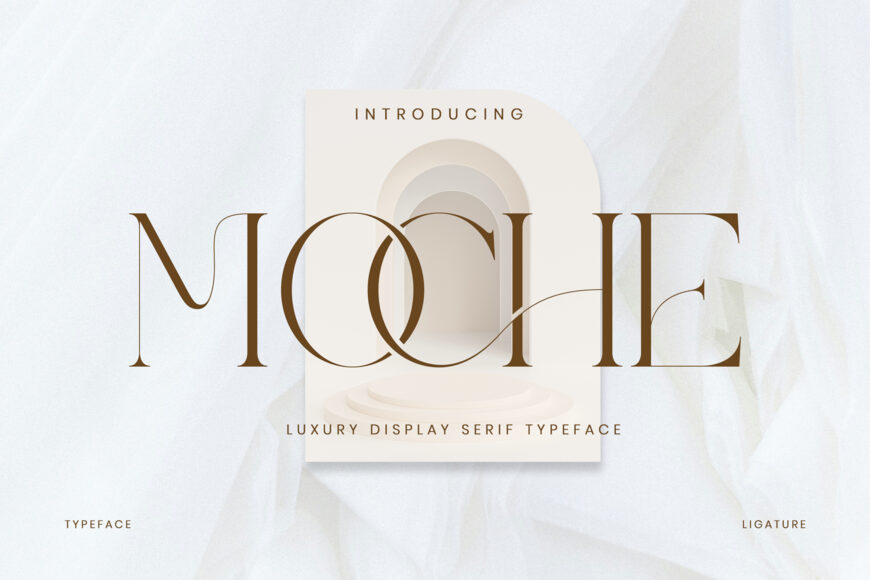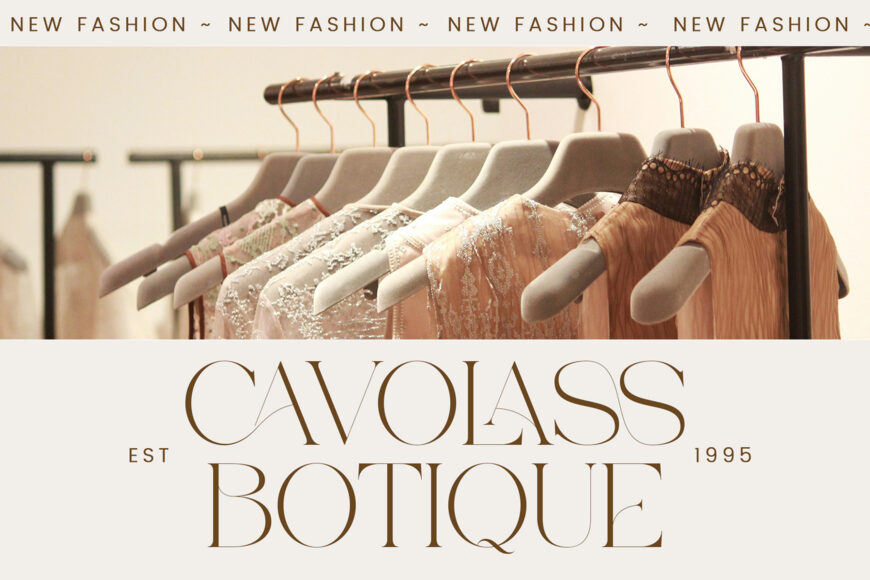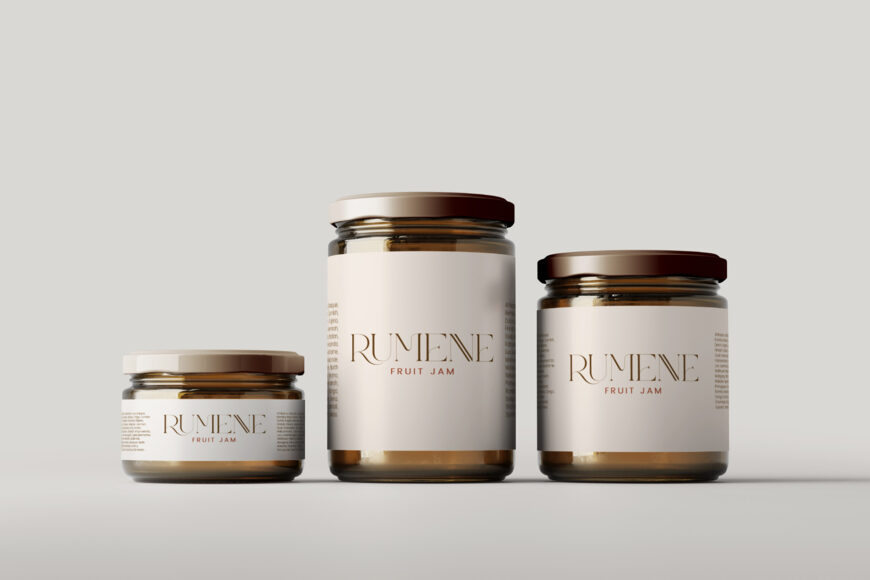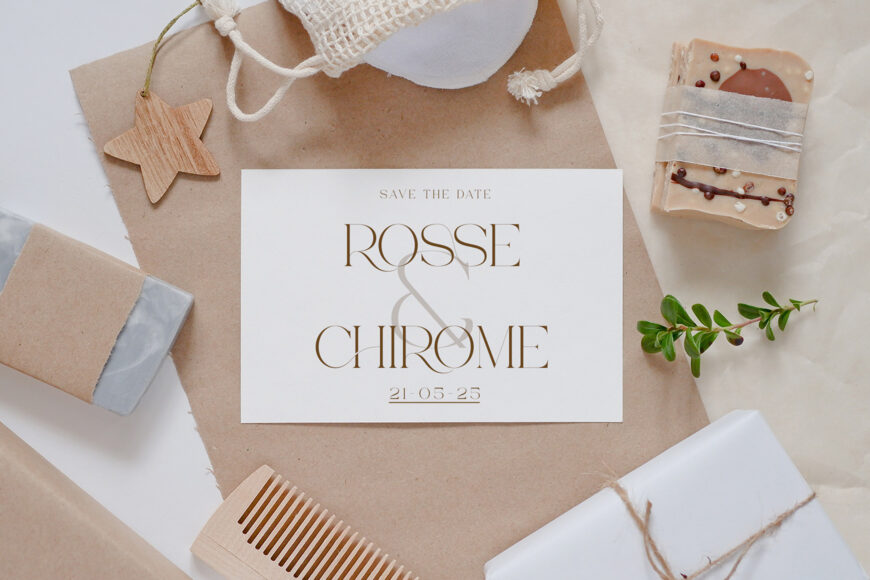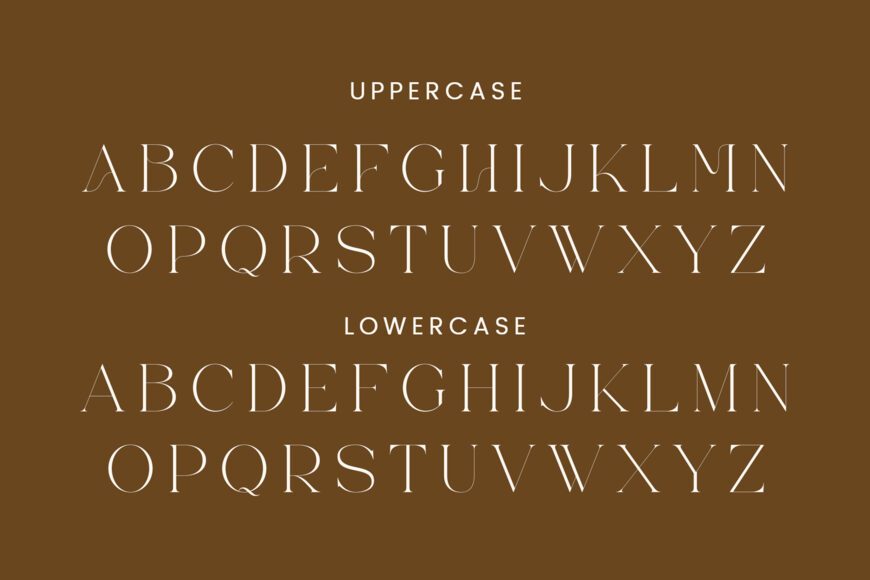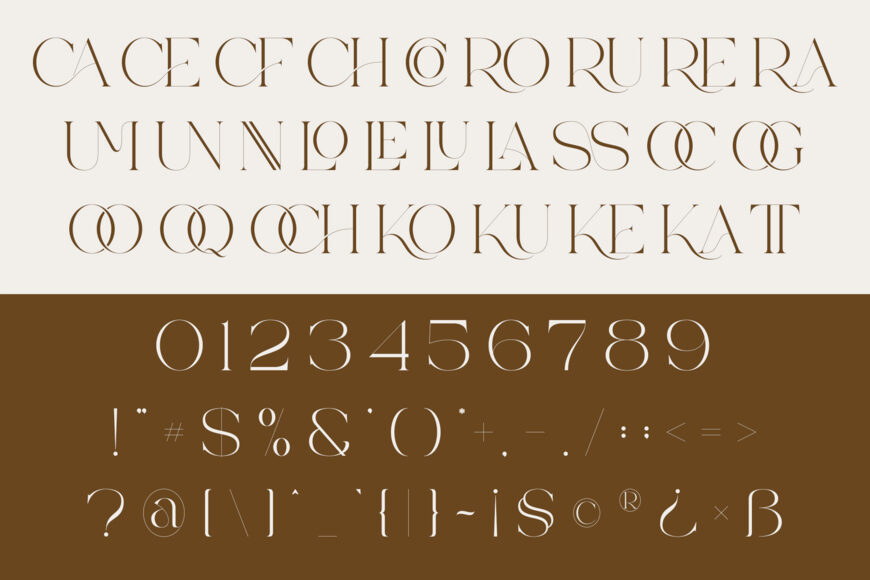
Moche Font
Moche is a stylish ligature serif typeface inspired by the elegance of minimalist logos, crafted to bring a modern and sophisticated touch to your designs. Its sleek, contemporary letterforms make it perfect for creating templates, brochures, videos, advertising materials, branding, logos, and much more.